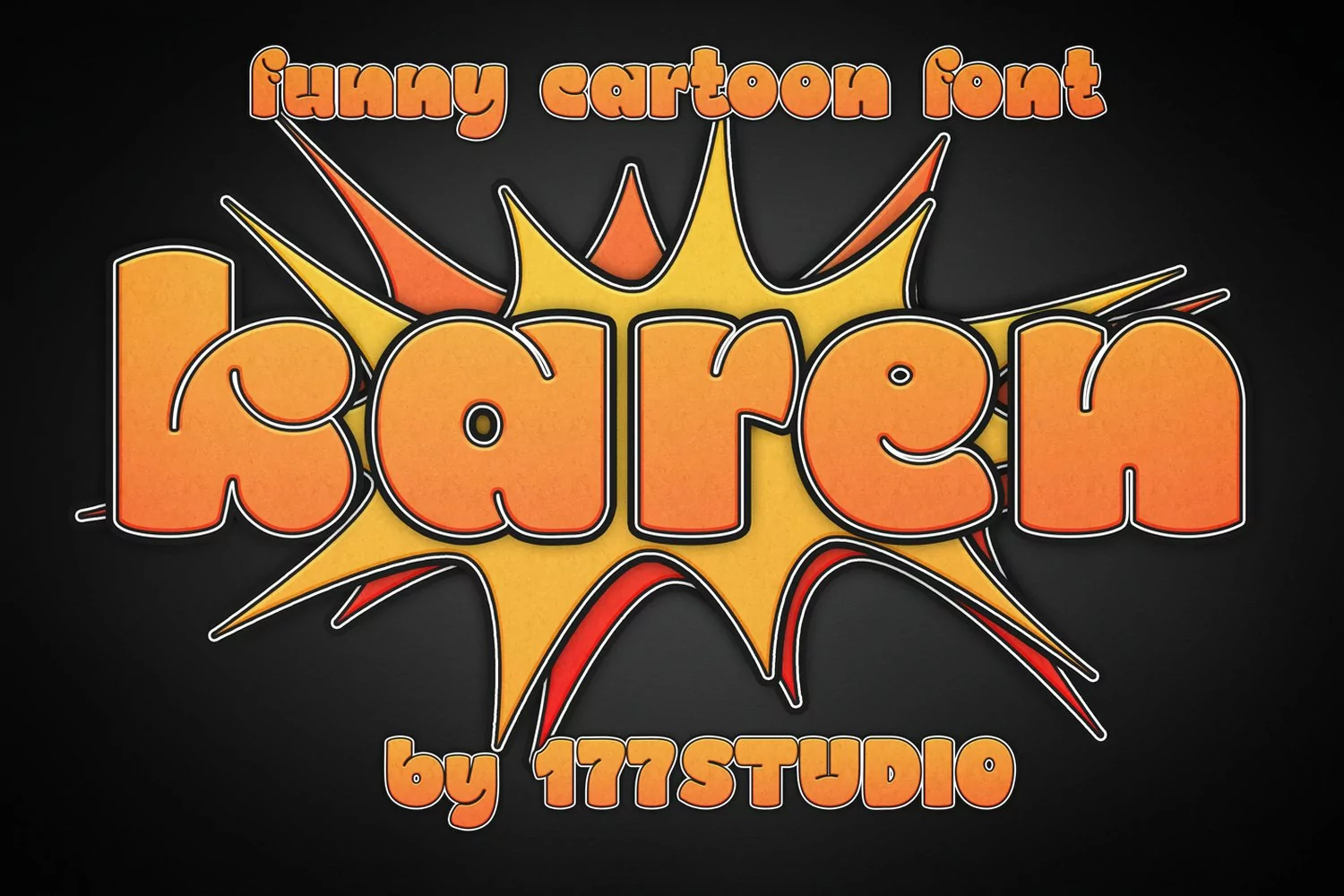
Karen is a comical Display Font. It's funny, bold comical character that will give you design a strong touch! The design started off as one of our heavy hand sketched letterform explorations. The characters were cute/round and not bulky/rigid.
These funny fonts you can use for decoration t-shirts, packs, business cards, brochures, flyers, banners and many other items. I hope these fonts you will like and they will be useful to you!